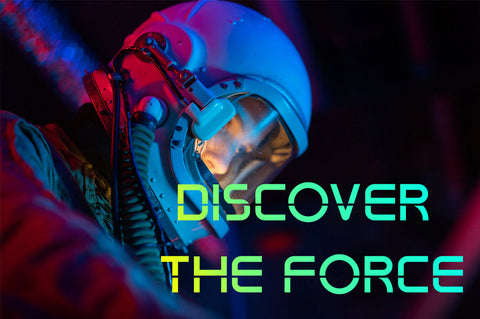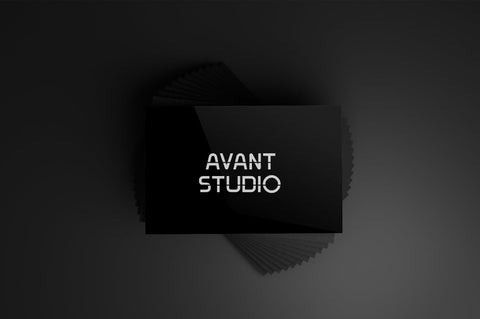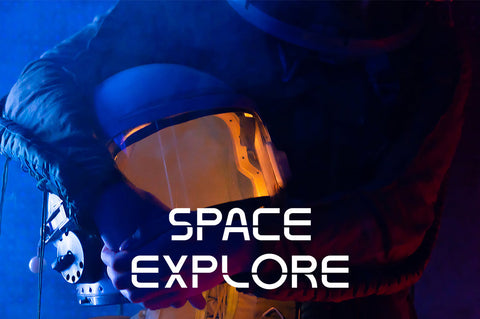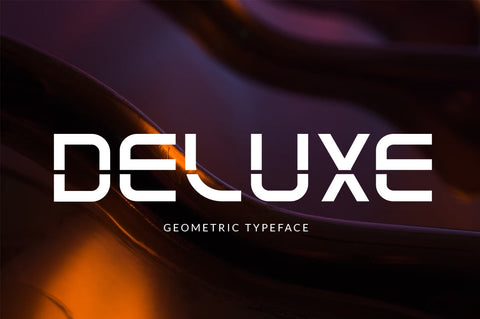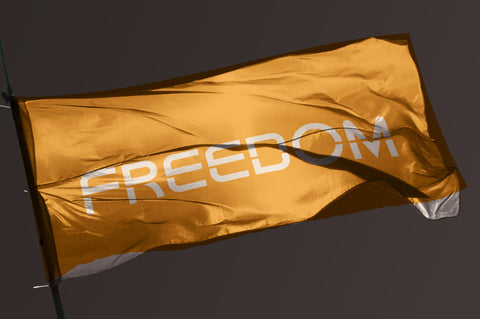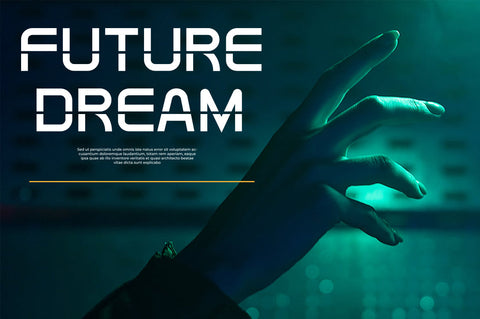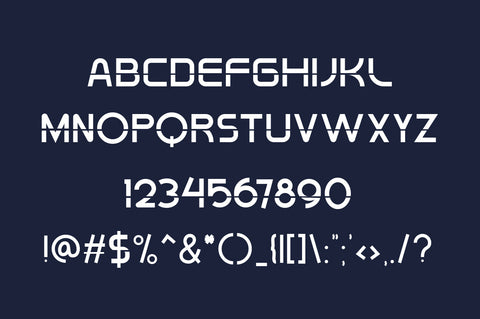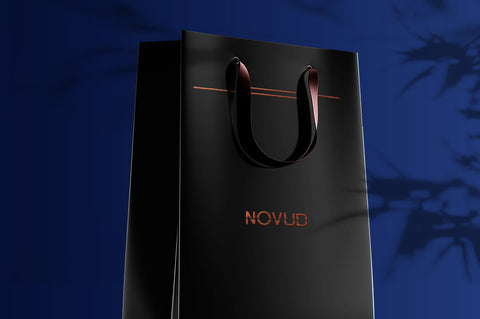
Deluxe – Modern Font
This Font is perfect for branding projects, logo, wedding designs, social media posts, advertisements, product packaging, tshirt design, product designs, label, photography, watermark, invitation, stationery and any projects.